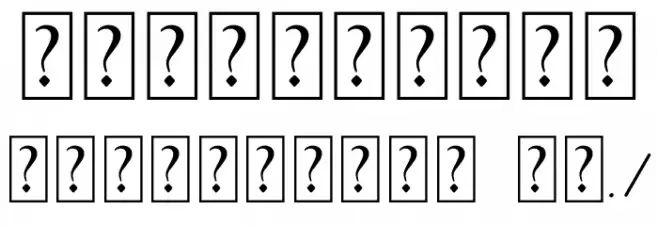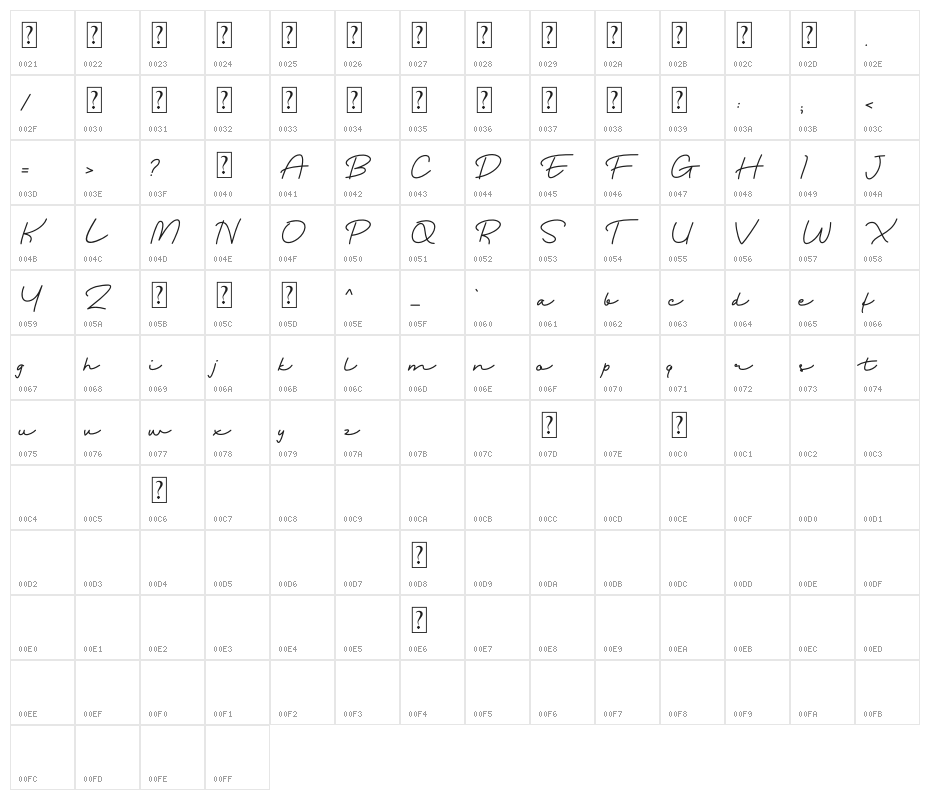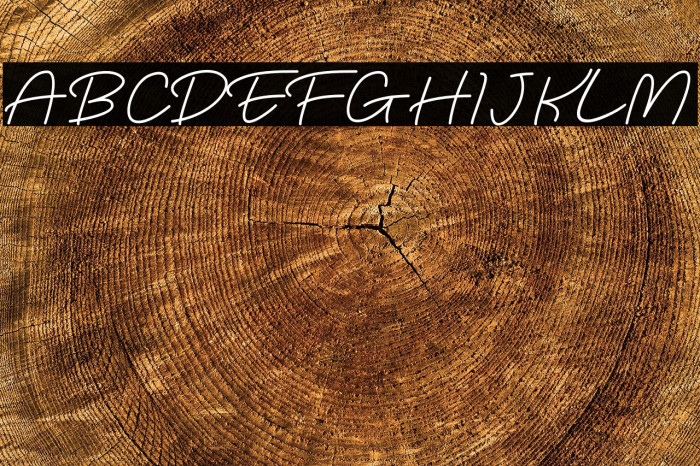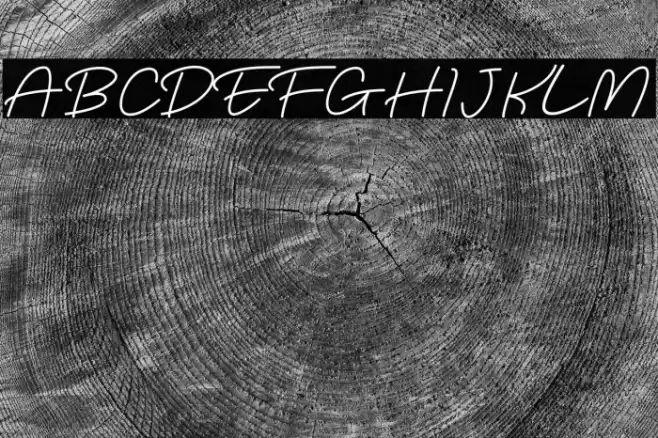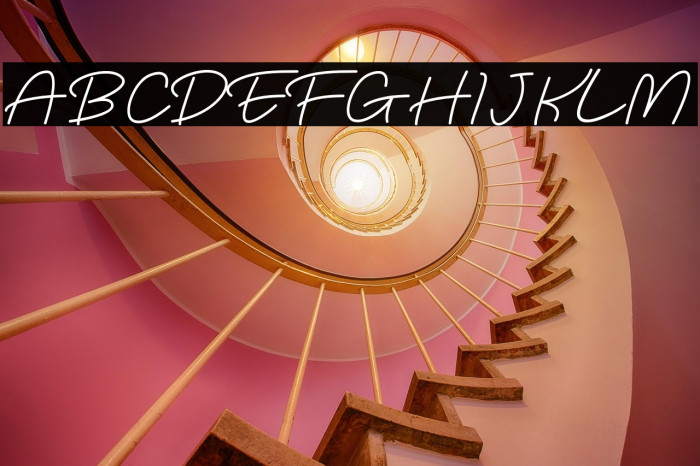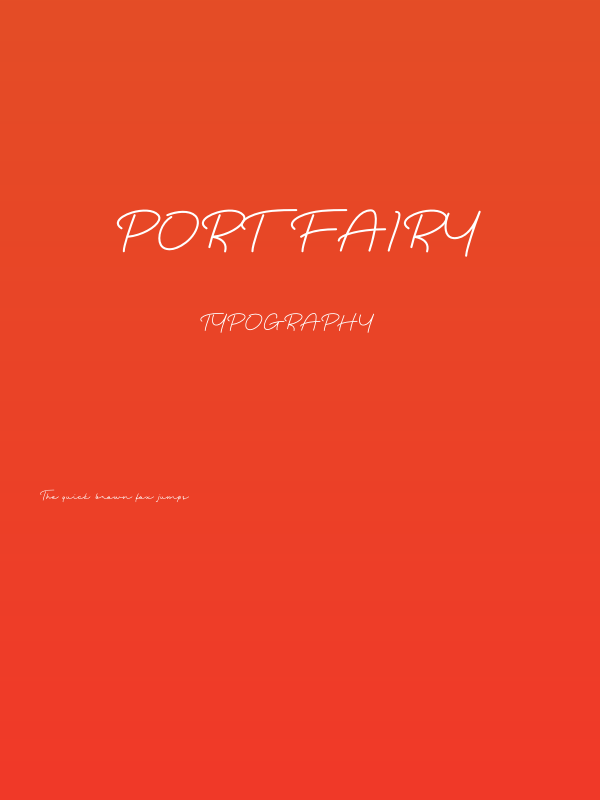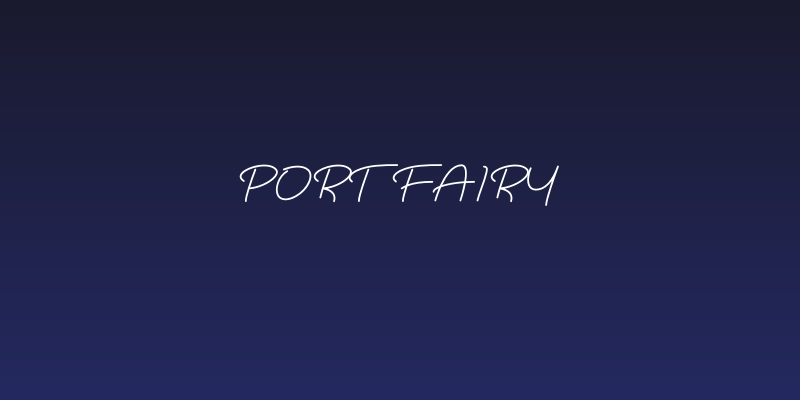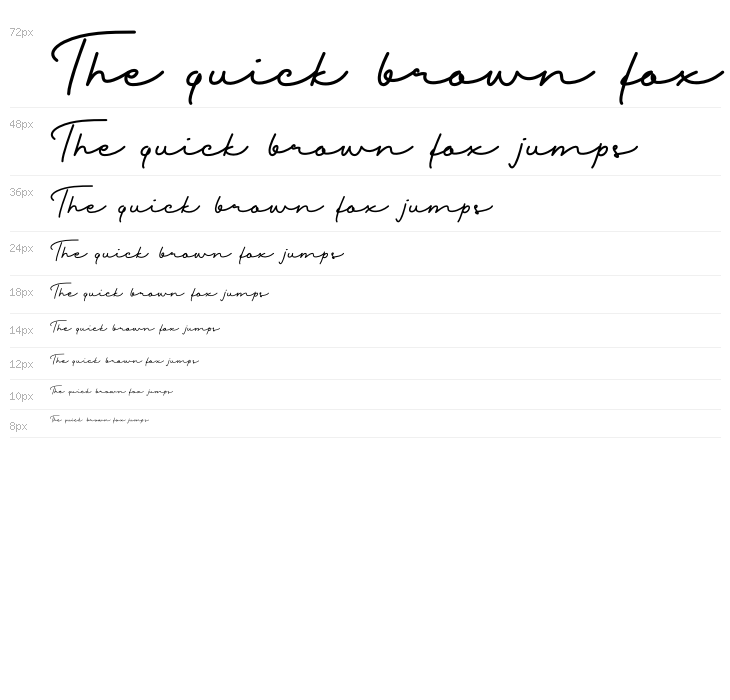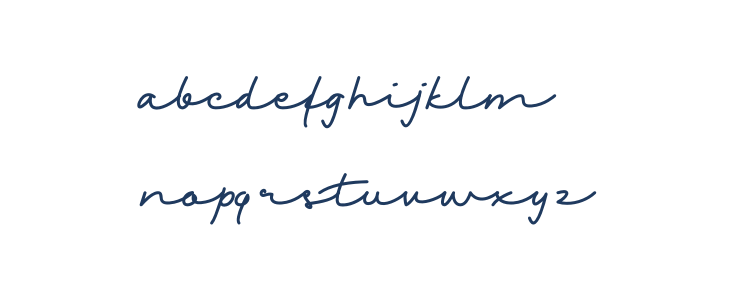
Port Fairy Font
Port Fairy Description
This font features a fluid and elegant script style, characterized by its smooth, flowing lines and cursive letterforms. The uppercase letters are slightly more formal, with a consistent slant and rounded edges, while the lowercase letters maintain a casual, handwritten appearance. The font exhibits a harmonious balance between each character, providing a natural and organic feel. The strokes are consistent in width, offering a medium contrast that enhances readability without sacrificing style. This font is well-suited for projects that require a personal touch, such as invitations, greeting cards, and branding materials.